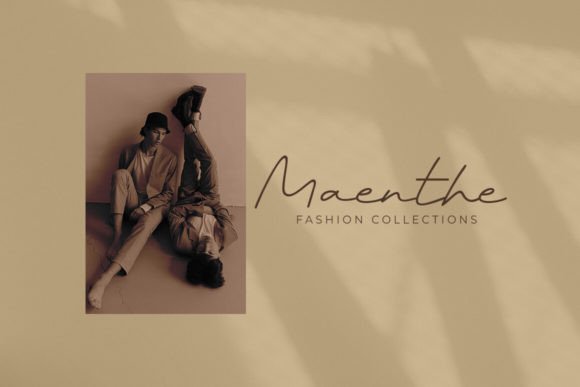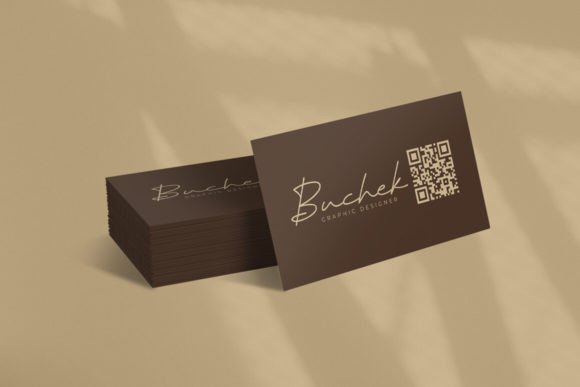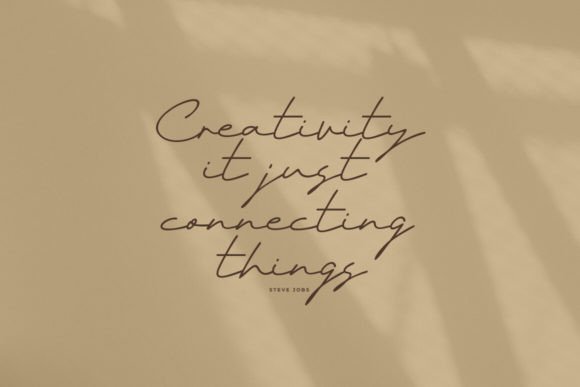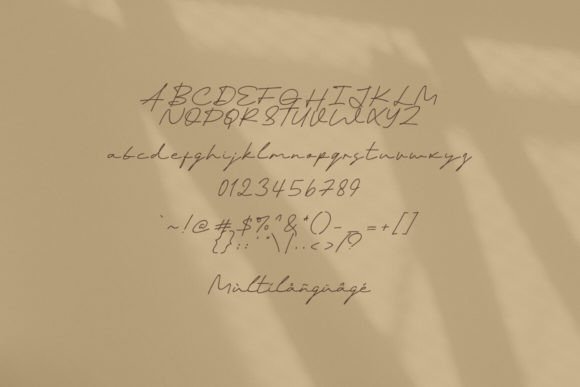
Unlock Your Creative Potential with the Autonesia Font
Enter the Autonesia Font, a clean, stylish, modern, and elegant script font that’s perfect for posters, logos, magazines, book covers, banners, and many more. This versatile font is designed to elevate your designs and make them stand out. Whether you’re a seasoned designer or just starting out, the Autonesia Font is a valuable addition to your creative toolkit.
With the Autonesia Font, you’ll have the freedom to create beautiful designs that reflect your unique style. From posters to book covers, this font is sure to make your work shine.
- Unique Characteristics: The Autonesia Font features a unique blend of modern and traditional design elements, with distinctive letterforms and flourishes that set it apart from other fonts.
Autonesia Font Review
As a designer, I’ve had the chance to work with various fonts, and Autonesia Font is one of the latest additions to my collection. Let’s dive into the details!
- Unique design: Autonesia Font has a distinct and modern feel to it. The font’s sleek lines and rounded edges make it perfect for creating visually appealing designs.
- Legibility: Despite its unique design, the font is still easy to read, making it a great choice for body text and headings.
- Flexibility: Autonesia Font comes in various weights and styles, allowing designers to experiment with different looks and feels.
- Not ideal for small text: Due to its unique design, Autonesia Font can become difficult to read at smaller font sizes.
- Limited support: As with many modern fonts, Autonesia Font may not be fully supported on older systems or browsers.
Overall, I think Autonesia Font is a great addition to any designer’s toolkit. Its unique design and flexibility make it perfect for creating eye-catching designs, but it may not be the best choice for every project. With some careful consideration and planning, Autonesia Font can be a powerful tool in a designer’s arsenal.
Tip: Use Autonesia Font for headings and titles to add a touch of elegance to your design.
Tip: Use Autonesia Font for custom typography projects to create unique and eye-catching designs.
Tip: Use Autonesia Font for presentations and documents to add a touch of sophistication.
Autonesia Font is ideal for:
- Brand identity projects
- Luxury product packaging
Remember to experiment with different font sizes and styles to get the most out of Autonesia Font.